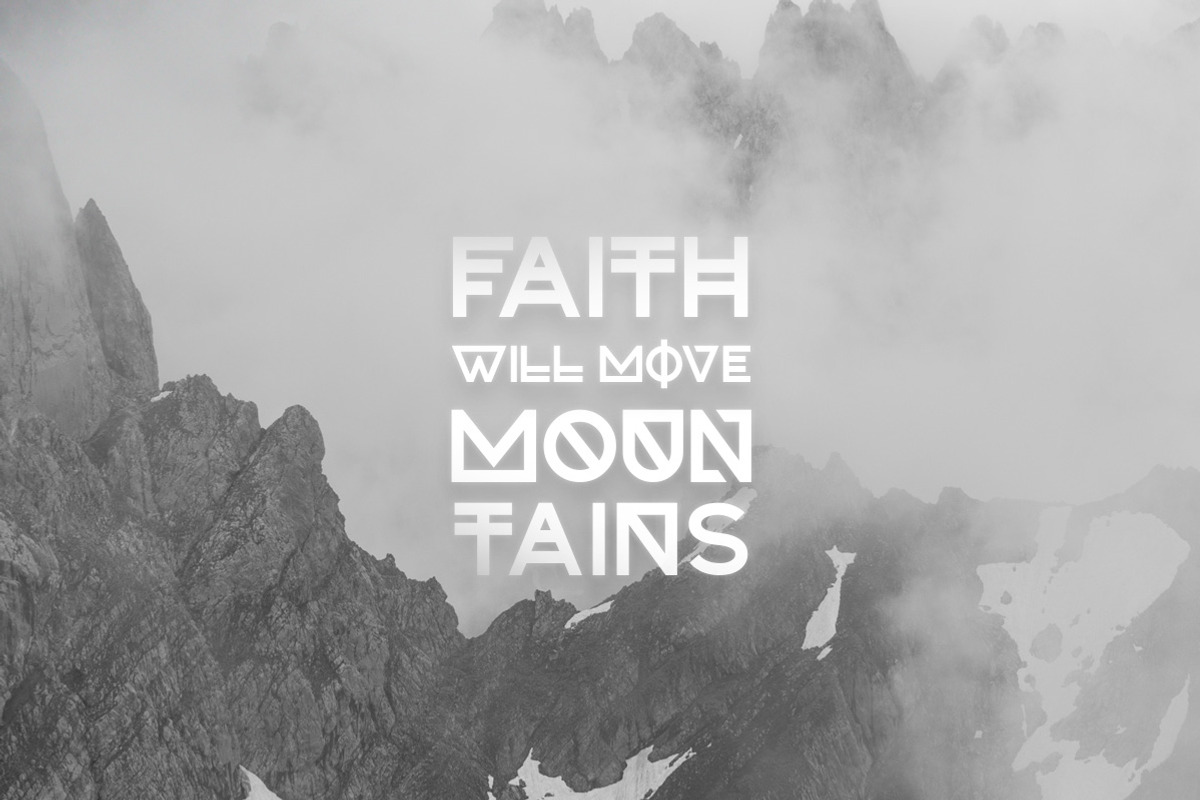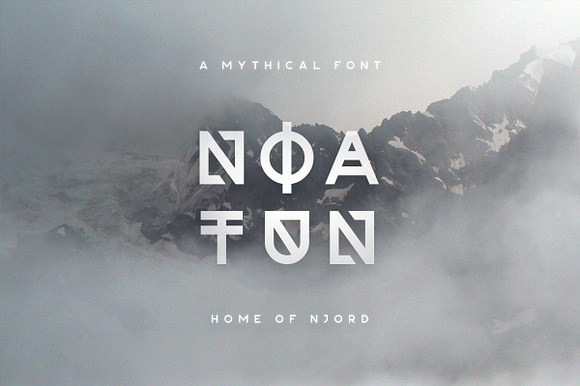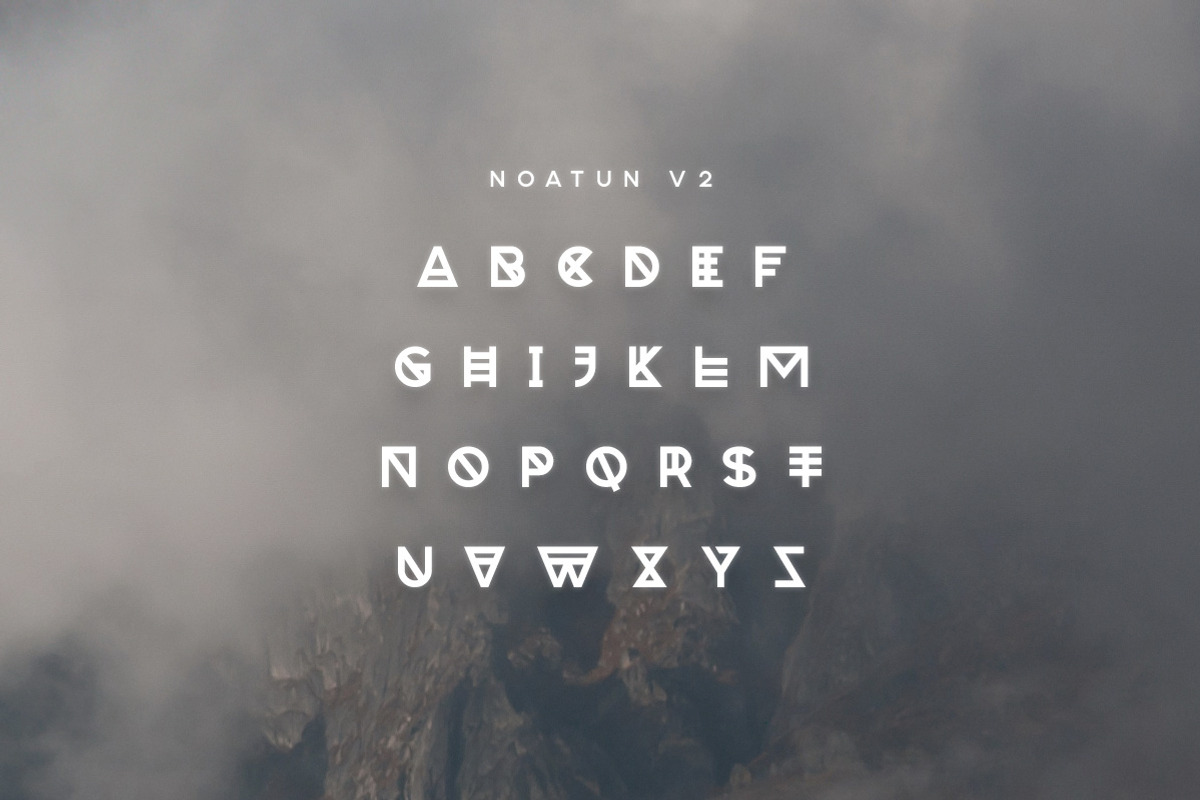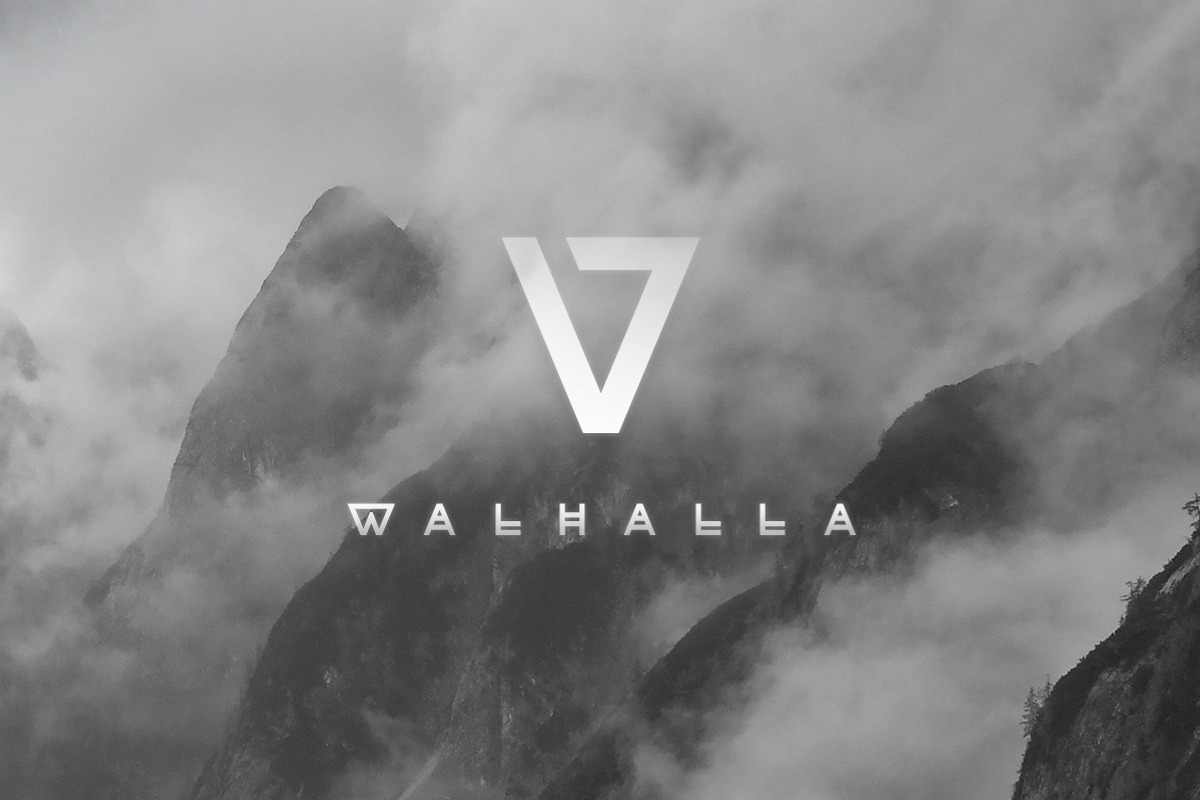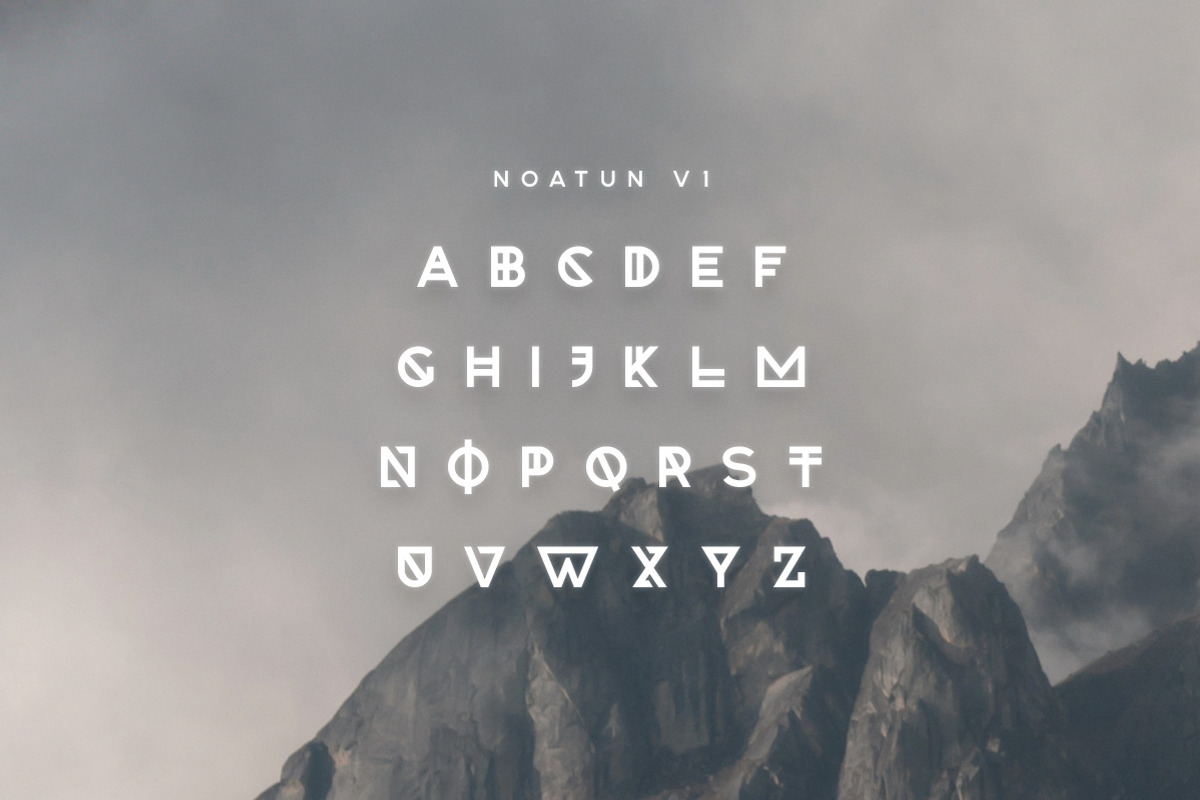
Noatun Typeface
Noatun is a strange typeface based on one of my other font families. It comes in two different versions and features a unique geometric style. It works great in titles, logos and short quotes. It includes some multilingual support, uppercase letters, numbers and punctuation.
- It includes some multilingual support, uppercase letters, numbers and punctuation.
- Noatun Version 1
- Noatun Version 2